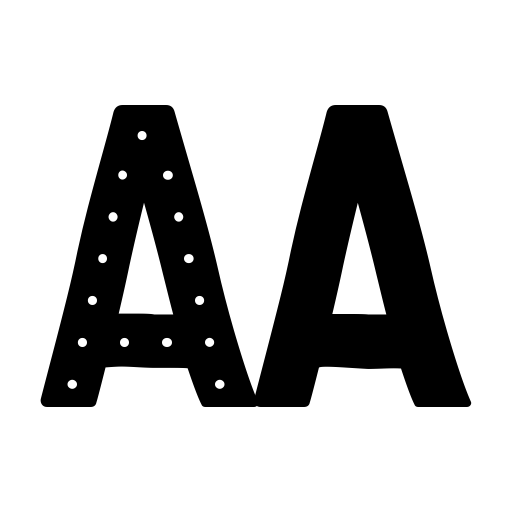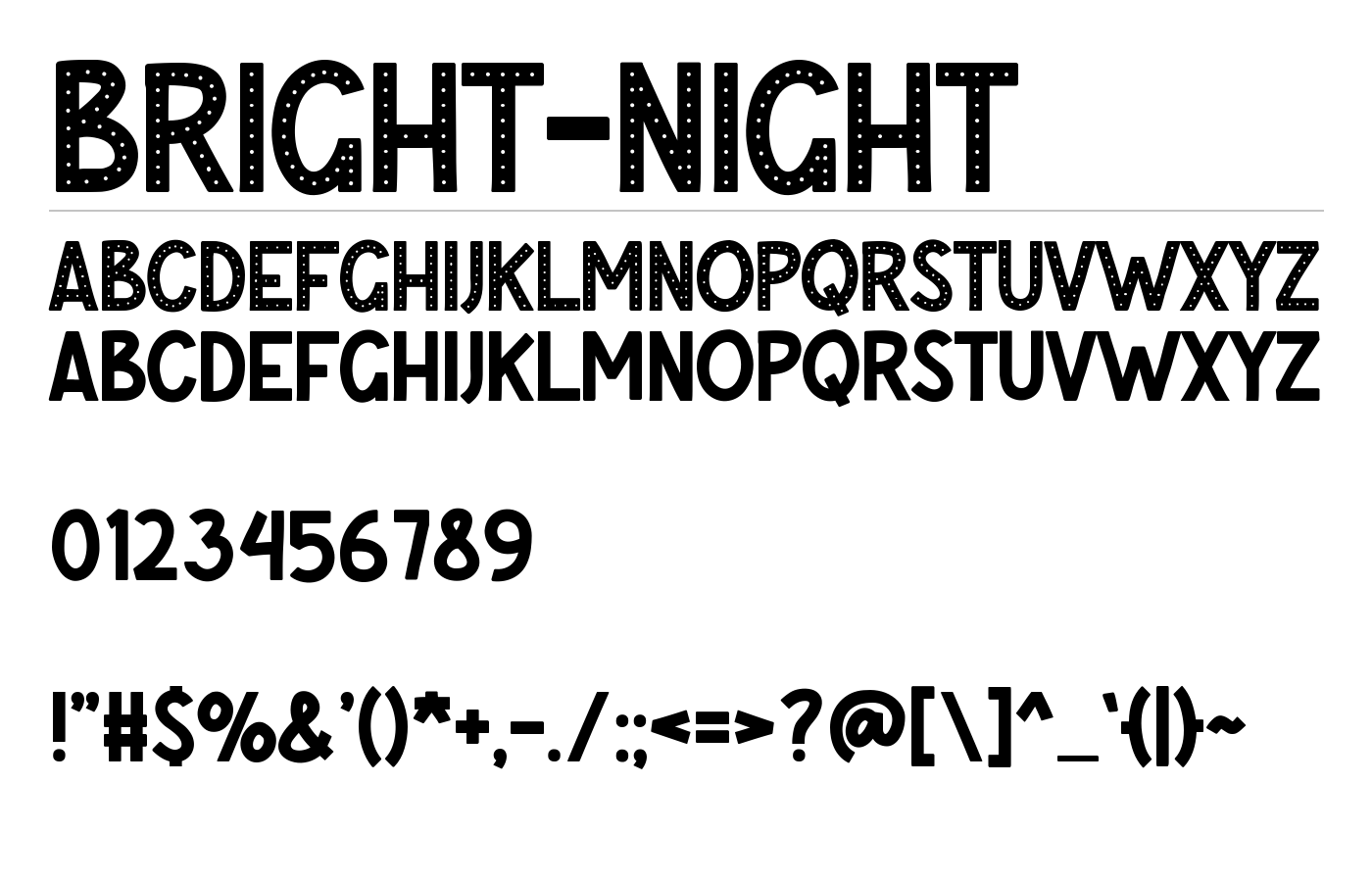
BRIGHT-NIGHT is a bold, playful sans serif font with a strong, rounded character and high x-height that ensures good readability. Its unique dotted style on the decorative version adds a fun, whimsical touch, making it ideal for eye-catching headlines, posters, and creative branding that seeks a lively and approachable personality. This font works well where a modern, friendly vibe is desired, especially in entertainment, children’s products, and casual design contexts.
BRIGHT-NIGHT Font
About BRIGHT-NIGHT Font
| Font family | BRIGHT-NIGHT Font |
| Designer | TOKOPRESS TEAM |